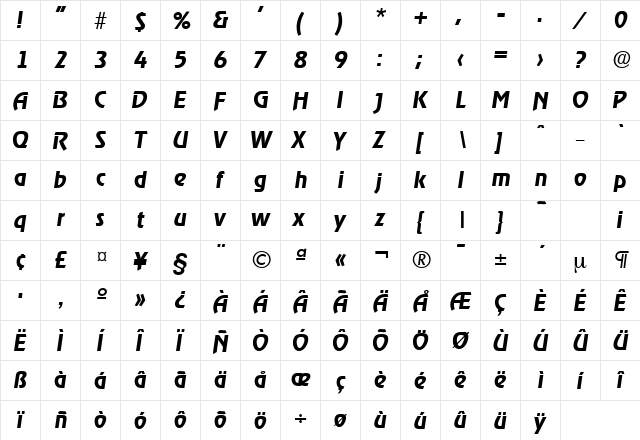
Ragtime-Serial BoldItalic Font Preview
Design Context for Ragtime-Serial Typeface
Ragtime-Serial takes a measured approach to typography — its balanced proportions and neutral character make it a reliable workhorse for both digital and print work. The dynamic lean of this cut emphasises speed and emphasis in any layout. The heavy weight commands attention and anchors typographic hierarchies.
Pro Tip: Try Ragtime-Serial for annotation and caption copy alongside an upright companion — the contrast in angle creates a dynamic but ordered typographic system.